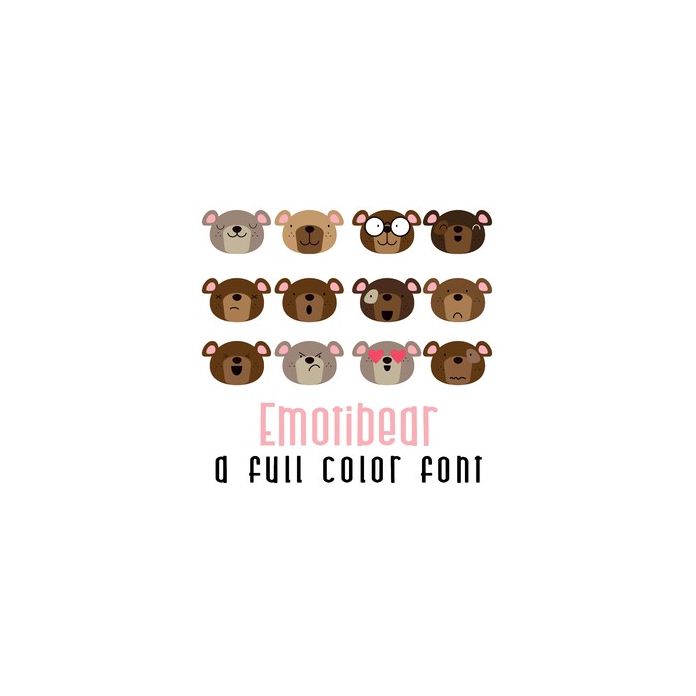
This adorable full-color doodlebat font features 26 bear emojis. Perfect for cards, crafts, gifts, decor, scrapbook pages, planner stickers, and more!